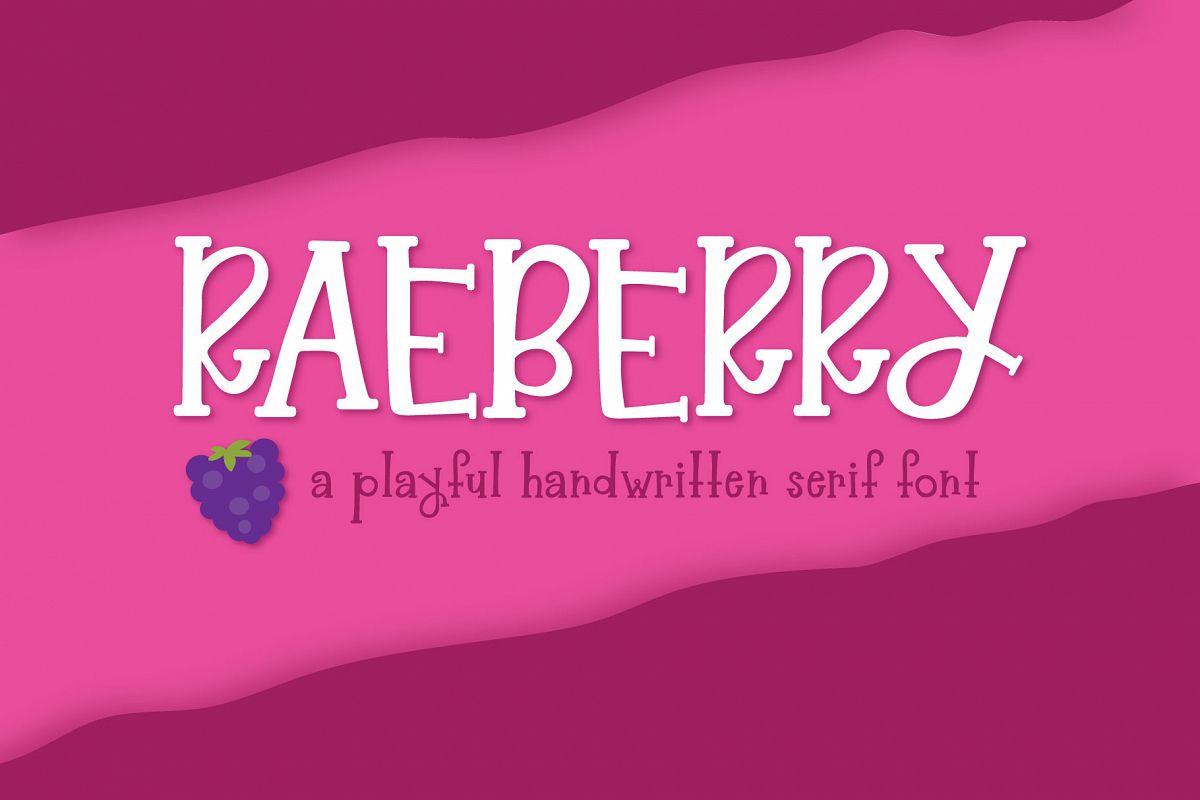
Raeberry includes basic Latin and provides multilingual support with accented characters for Western European users. This whimsical font is perfect for crafts from summertime to Christmastime.Raeberry is provided as an OTF (open type) as well as a TTF (true type).See the entire list of characters by clicking the second image preview.